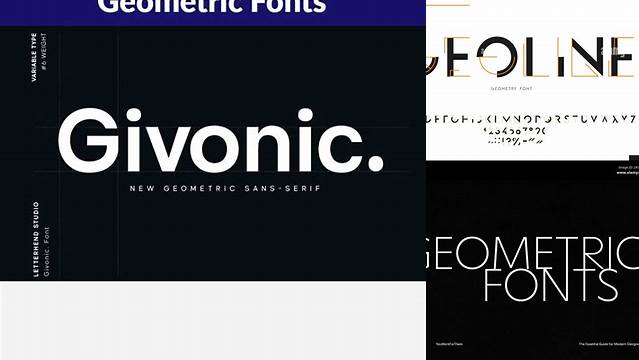
Best Geometric Fonts: A Comprehensive Guide For Designers
Geometric fonts have taken the design world by storm, and for good reason! Their clean lines, simple shapes, and overall modern aesthetic make them incredibly versatile. Whether you're a seasoned designer or just starting out, understanding the nuances of these fonts is key. This guide dives deep into the world of geometric fonts, exploring their history, characteristics, and how to best utilize them in your projects. We'll cover a wide range of styles, from the classic and timeless to the more experimental and contemporary. So, buckle up, guys, because we're about to embark on a typographic adventure!
Exploring the Origins and Evolution of Geometric Fonts
Geometric fonts didn't just pop up overnight, guys. They have a rich history rooted in the principles of Bauhaus design and the pursuit of pure form. The early 20th century saw a surge in modernist art and architecture, and this aesthetic heavily influenced typography. Think of it as a rebellion against the ornate and often fussy typefaces of the Victorian era. Designers were yearning for something clean, functional, and easily legible. The Bauhaus movement, with its emphasis on simplicity and geometric shapes, provided the perfect breeding ground for these new fonts. Early examples, like Futura and Avant Garde, were groundbreaking. They ditched the serifs and embraced the basic geometric shapes: circles, squares, and triangles. This wasn't just about aesthetics; it was a statement about the future. The fonts reflected the speed, efficiency, and streamlined nature of modern life. These fonts were designed to be easily reproduced and universally understood. They were meant to communicate effectively across cultures and languages. As technology advanced, so did the creation and usage of these fonts. The digital age brought about countless variations and adaptations, but the core principles remained the same. Geometric fonts continue to evolve, responding to new trends and technologies. The history of geometric fonts is a testament to the power of design to shape our visual world. They have become a cornerstone of modern design, influencing everything from branding to web design.
The Bauhaus Influence: Shaping Early Geometric Typefaces
The Bauhaus, a German art school operational from 1919 to 1933, played a pivotal role in the development of geometric fonts. The school's philosophy, which integrated art, craft, and technology, deeply influenced the design principles that underpinned these typefaces. Bauhaus artists and designers sought to create a unified aesthetic, rejecting the ornamentation of previous eras in favor of clean lines and functional design. The emphasis on geometric shapes, such as circles, squares, and triangles, was central to the Bauhaus aesthetic. These shapes were seen as pure forms, embodying the essence of modernism. Early geometric typefaces, like Futura, were a direct result of these principles. Paul Renner, the designer of Futura, aimed to create a typeface that was both aesthetically pleasing and highly legible. He drew inspiration from the geometric forms used in Bauhaus art and architecture. Futura's clean, sans-serif design reflected the Bauhaus ideals of simplicity and functionality. The impact of the Bauhaus extended beyond just the aesthetics of the fonts. It also influenced the way these fonts were used. The Bauhaus designers favored simple, uncluttered layouts that allowed the type to take center stage. This approach emphasized the importance of clear communication and visual impact. The legacy of the Bauhaus continues to be felt in modern design. Many contemporary designers still draw inspiration from the school's principles, using geometric fonts to create clean and modern designs. The Bauhaus's influence ensures that geometric fonts will continue to be a vital part of the design landscape. The Bauhaus's focus on functionality and simplicity made geometric fonts an ideal choice for various applications. From posters to advertisements, these fonts quickly became the standard. This cemented their place in design history.
Pioneers of Geometric Typography: Key Designers and Their Contributions
The development of geometric fonts wouldn't have been possible without the vision and creativity of pioneering designers. These individuals understood the power of simple shapes and the importance of clarity in communication. Paul Renner, the designer of Futura, is undoubtedly one of the most influential figures in the history of geometric typography. His vision for a clean, sans-serif typeface set the standard for many subsequent designs. Renner's emphasis on geometric forms and readability made Futura a timeless classic. Herbert Bayer, another key figure, contributed significantly to the development of geometric typefaces. As a student and later a teacher at the Bauhaus, Bayer embraced the principles of the movement. His work, including the Universal typeface, exemplified the Bauhaus aesthetic. Bayer's designs were characterized by their simplicity and functionality. They were used in a variety of applications, including posters and signage. Another notable designer, Josef Albers, also played a key role in the evolution of geometric typography. Albers, known for his abstract art and color theory, contributed to the development of fonts that embodied the principles of modernism. His focus on form and visual impact influenced the use of geometric typefaces in graphic design. The contributions of these designers are still felt today. Their work continues to inspire and influence designers around the world. The legacy of these pioneers is evident in the countless geometric fonts available. These fonts continue to be used in various design projects. Their commitment to clarity and innovation has shaped the field of typography.
Defining the Characteristics of a Geometric Font
So, what exactly makes a font geometric, right? It's all about the underlying shapes, guys. Geometric fonts are characterized by their reliance on basic geometric shapes, like circles, squares, triangles, and straight lines. Unlike fonts with elaborate serifs or calligraphic elements, these fonts prioritize simplicity and clarity. The letterforms are constructed using these fundamental shapes, resulting in a clean and modern aesthetic. Another key characteristic is their overall consistency. The letterforms are often uniform in stroke weight and height, which creates a sense of visual harmony. This consistency contributes to the font's readability and its ability to convey a sense of order and precision. Legibility is a top priority. Geometric fonts are designed to be easily readable, even at smaller sizes. This makes them ideal for various applications, from body text to headlines. The absence of unnecessary flourishes or decorative elements ensures that the focus remains on the message. Geometric fonts often have a strong sense of modernity and minimalism. They align well with contemporary design trends. The clean lines and simple shapes create a visual impact that is both striking and understated. This makes them perfect for branding, advertising, and web design. Their versatility is also a key characteristic. They can be used in a wide range of contexts, from formal to informal, and they pair well with a variety of other design elements.
Sans-Serif vs. Geometric: Understanding the Difference
While all geometric fonts are sans-serif, not all sans-serif fonts are geometric, guys. This is an important distinction. Sans-serif simply means